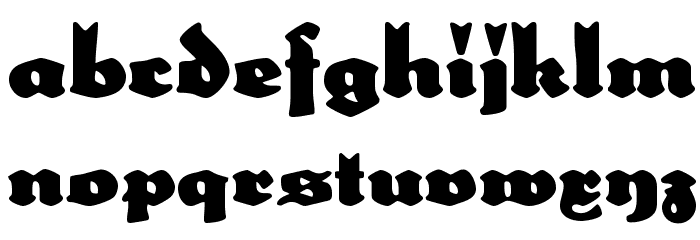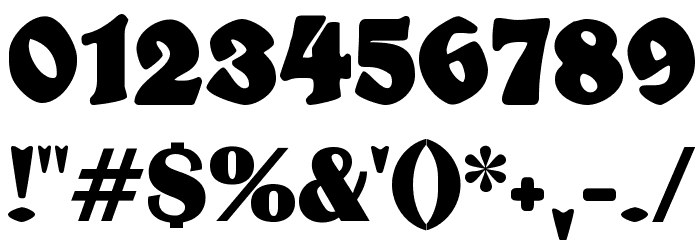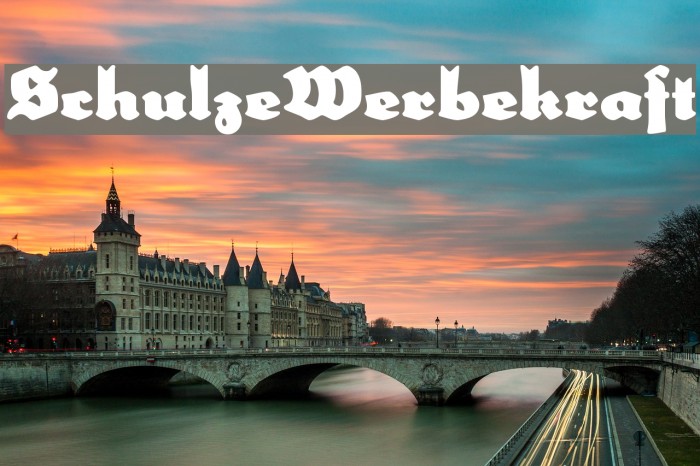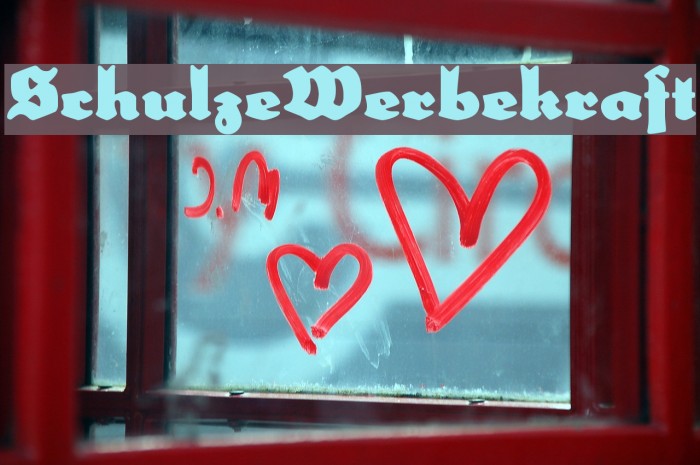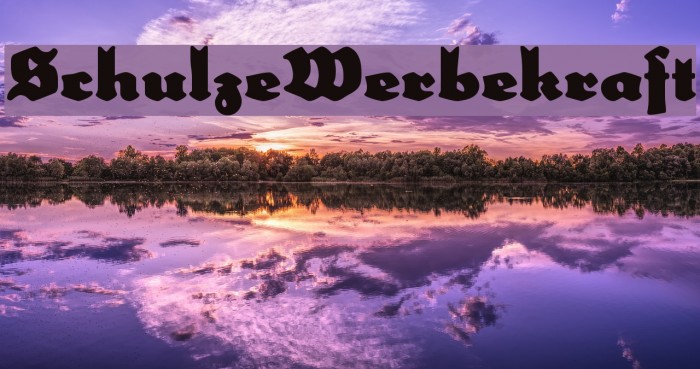
SchulzeWerbekraft Font
This font exhibits a bold and dramatic style, characteristic of traditional Blackletter typefaces. The letters are ornate with sharp, angular lines and intricate detailing, giving it a historic and authoritative appearance. The uppercase letters are particularly striking, with a strong presence and a sense of formality. The lowercase letters maintain the same intricate style, ensuring consistency throughout the typeface. The numerals and special characters are equally bold, complementing the overall aesthetic. This font is ideal for projects that require a touch of elegance and historical significance.
A bold, dramatic Blackletter font with ornate, angular lines.
- Proposed Projects: Suitable for certificates, historical documents, branding for luxury products, or any project needing a classic, authoritative touch.
- Overall Style: Classic
- Use Case: Logos, Certificates, Branding